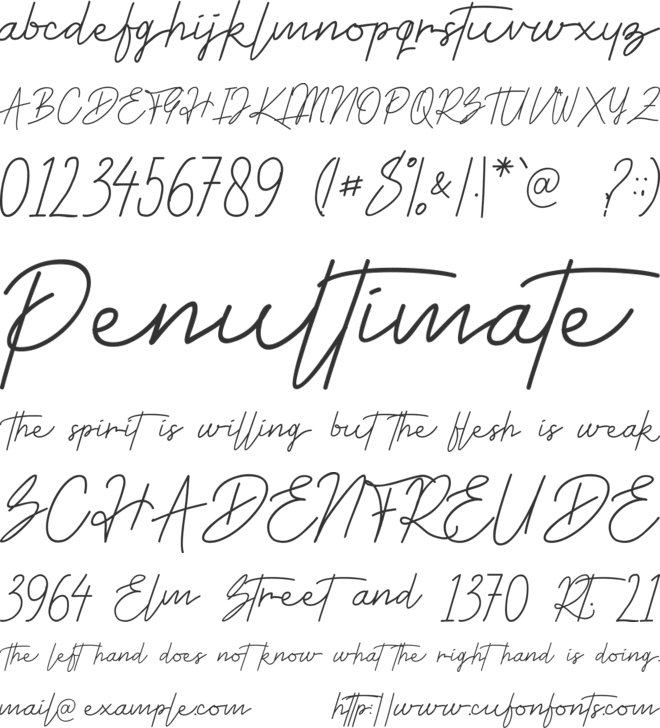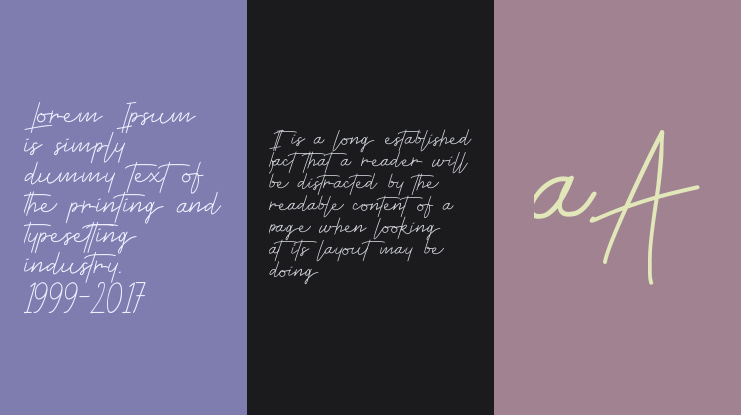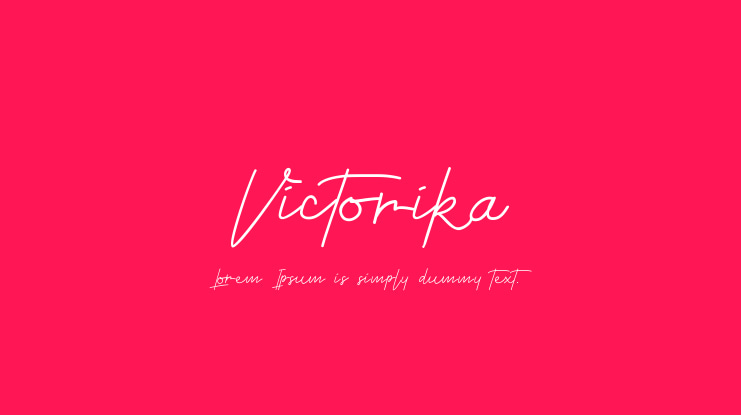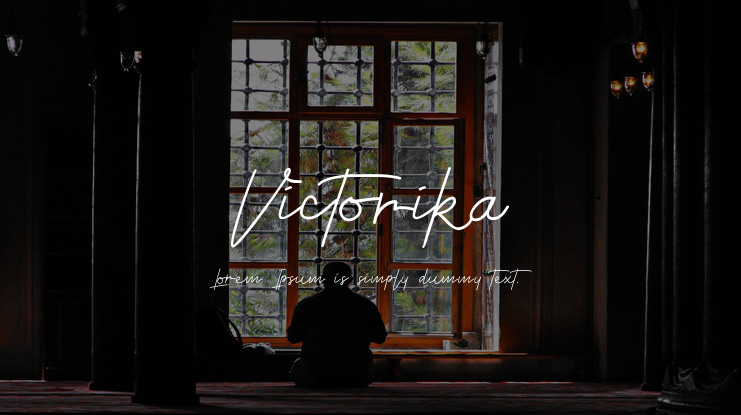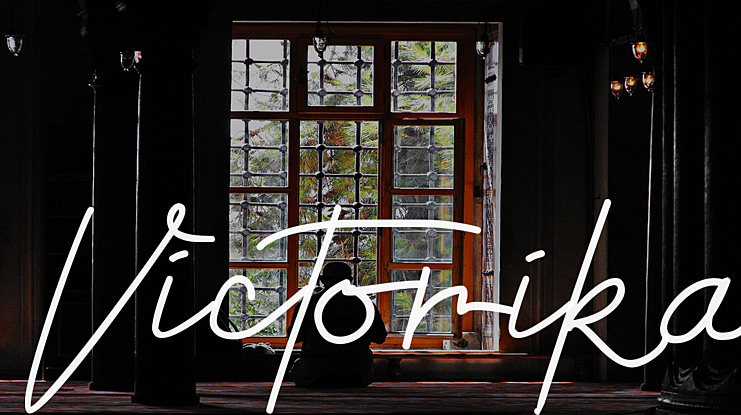
Victorika Font
Victorika is a special font created with a touch of detail on each letter. Visually looks elegant, aesthetic, beautiful and modern. You can use to create designs for personal branding, perfect for photography, watermark, social media posts, advertisements, logos, poster titles, magazines, name tags, book titles, business cards, beautiful fashion designs, advertisements, product designs, wedding invitations, signatures, handwritten quotes.